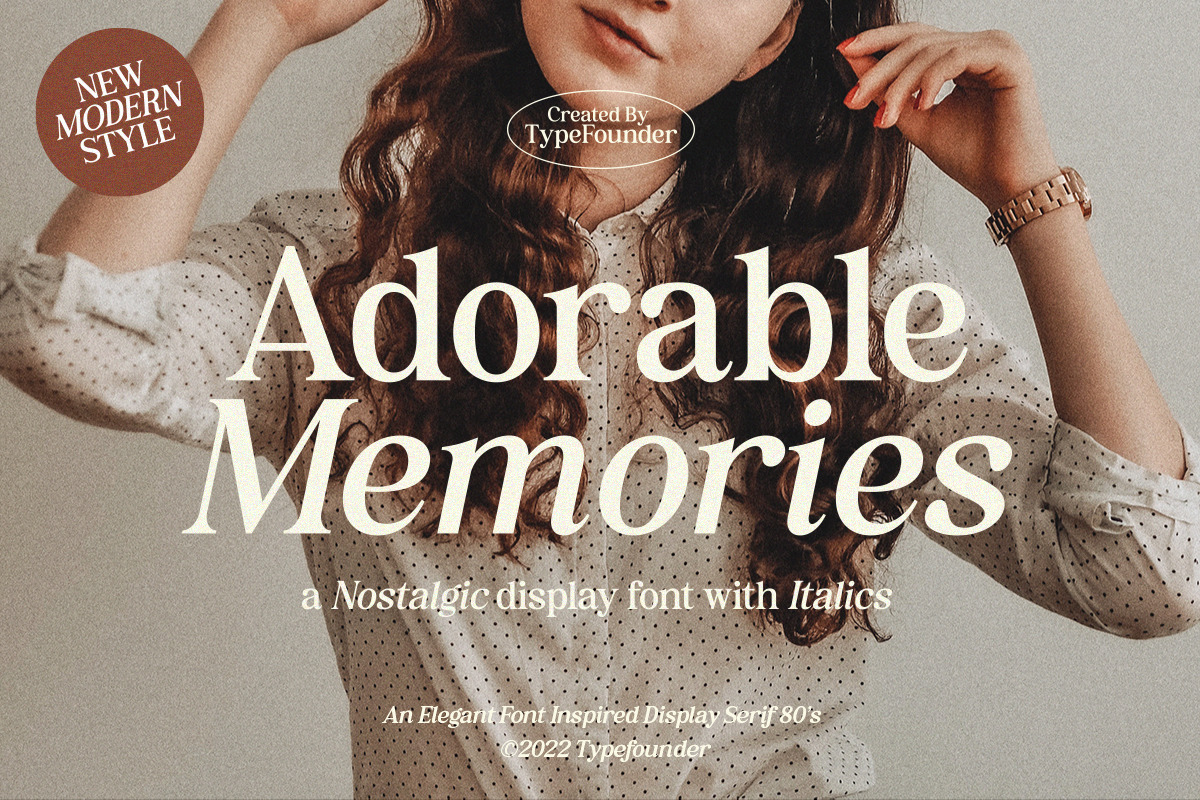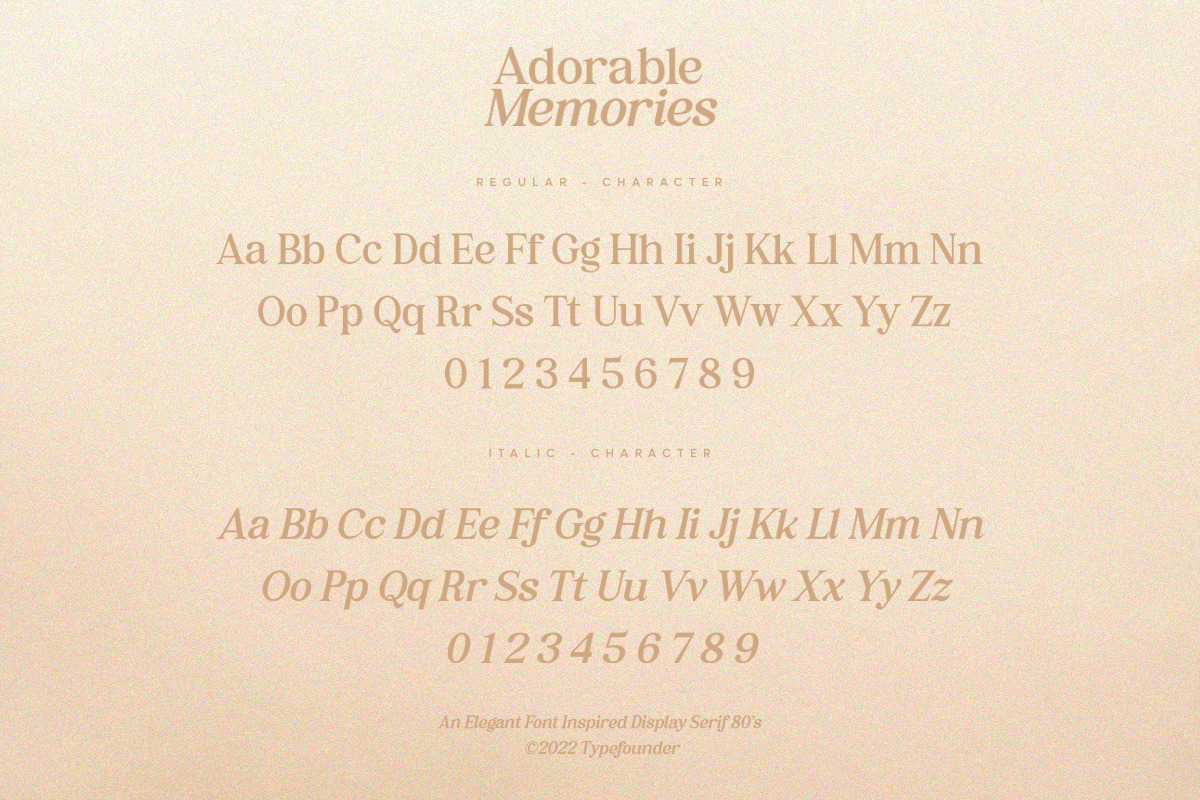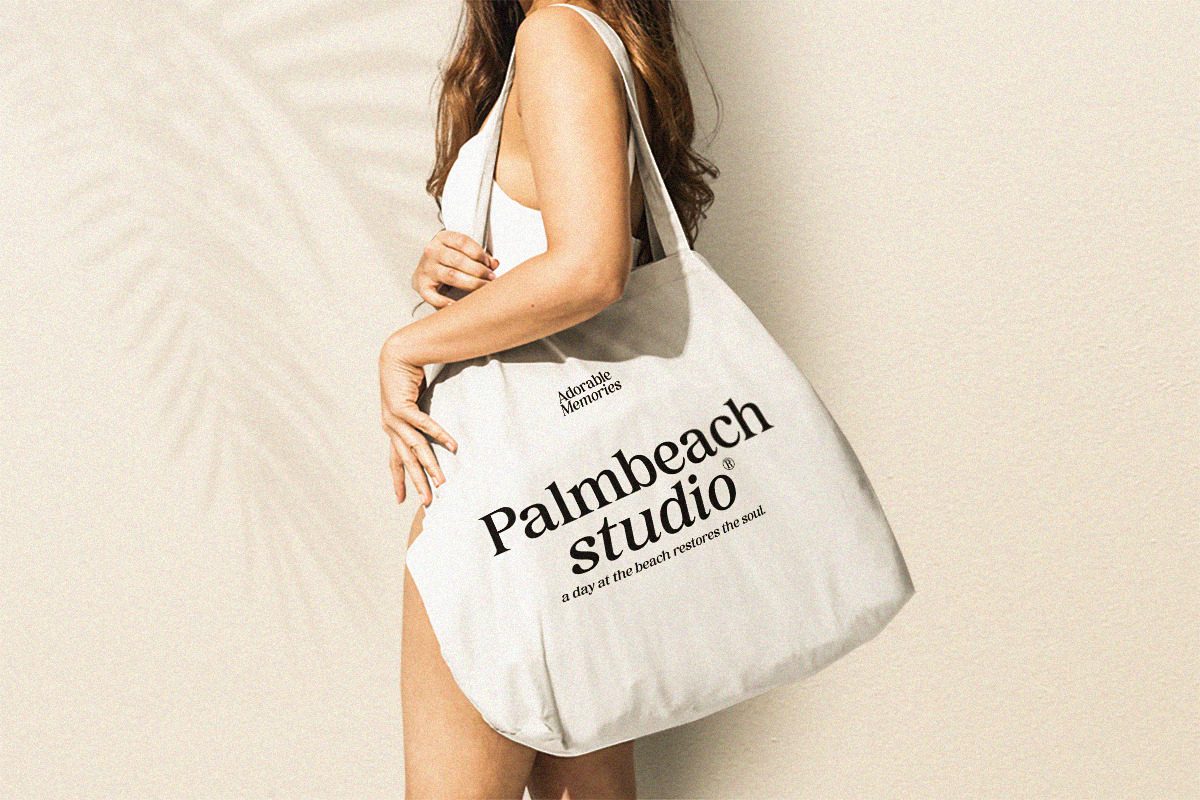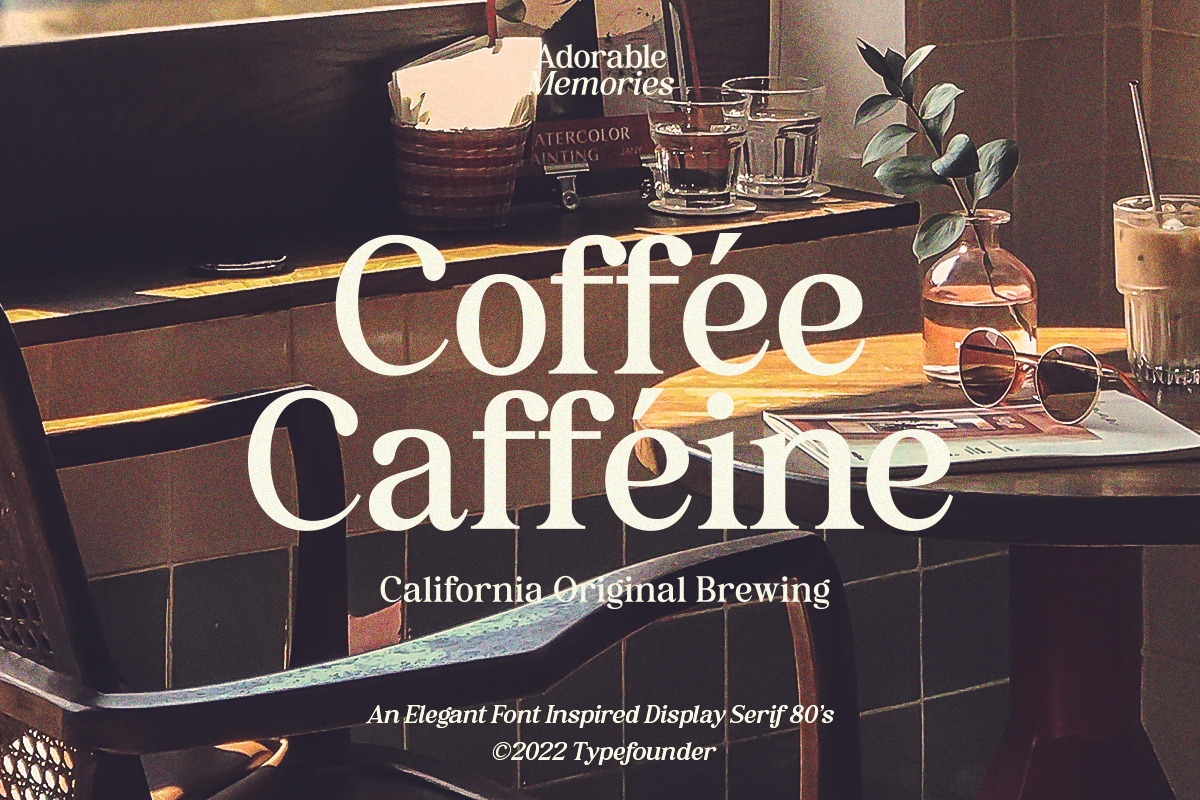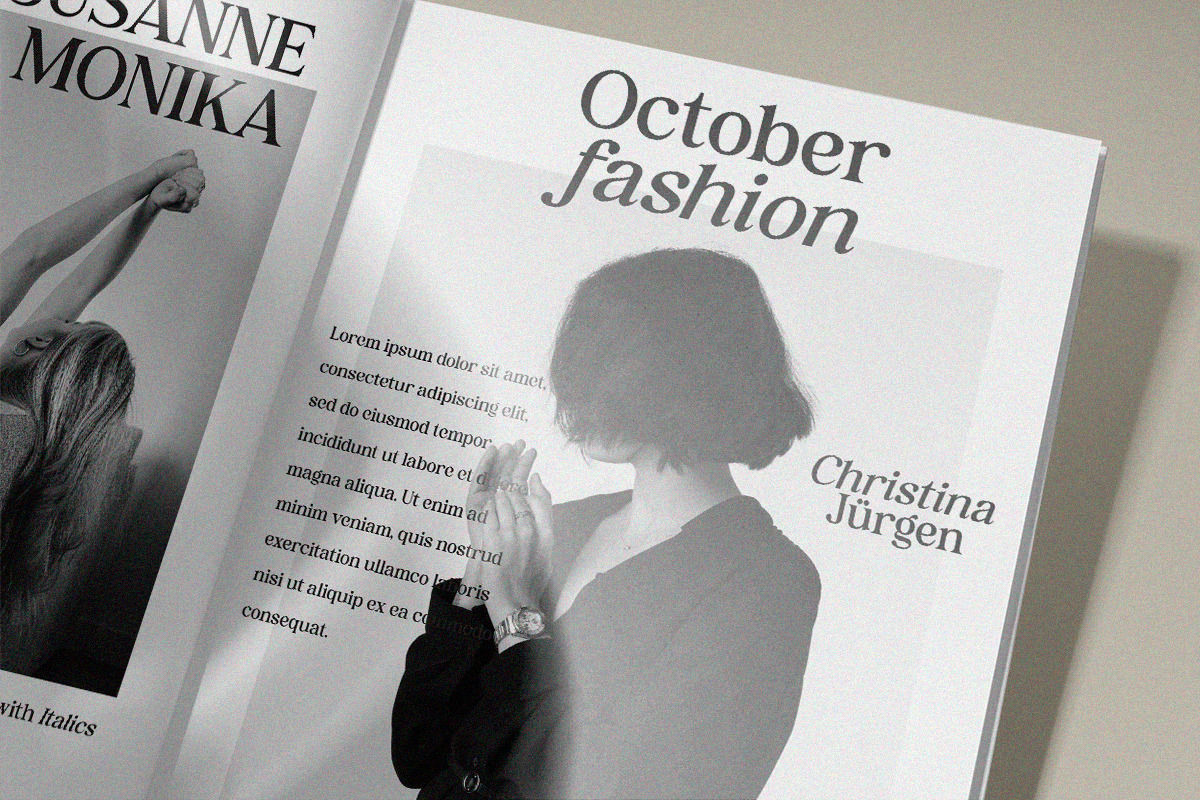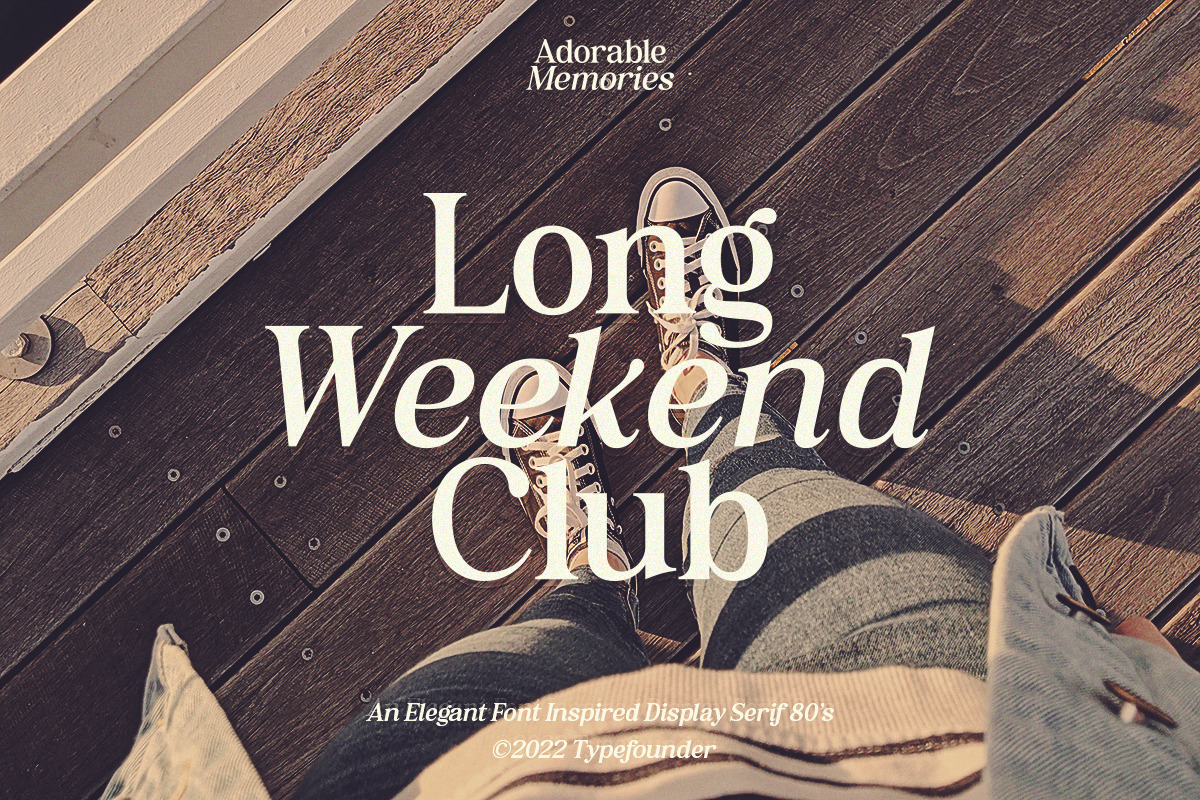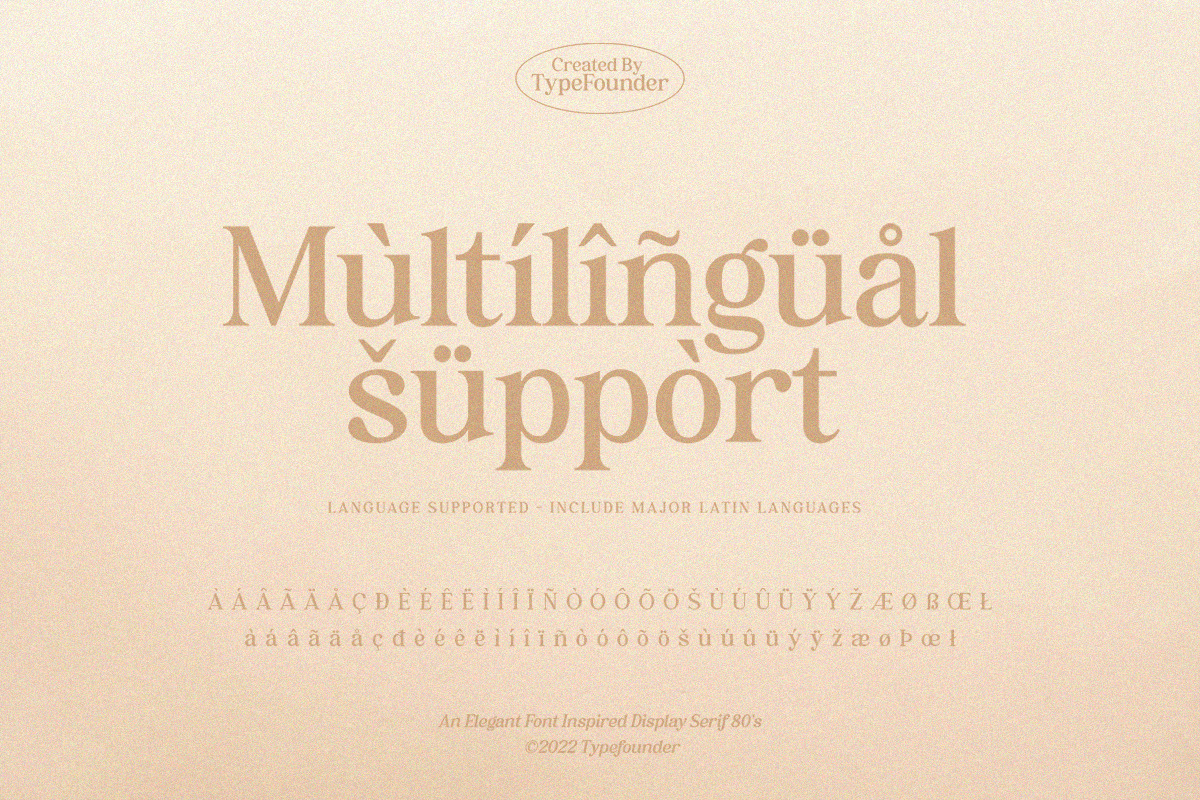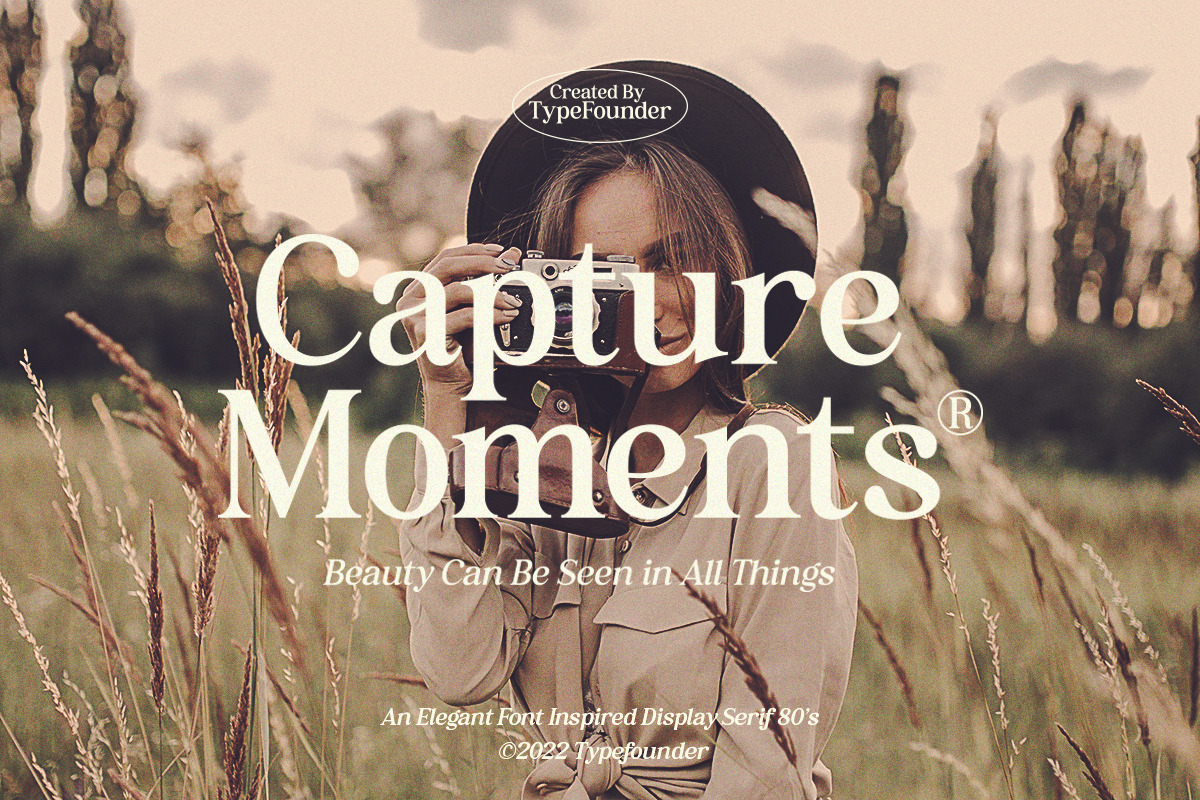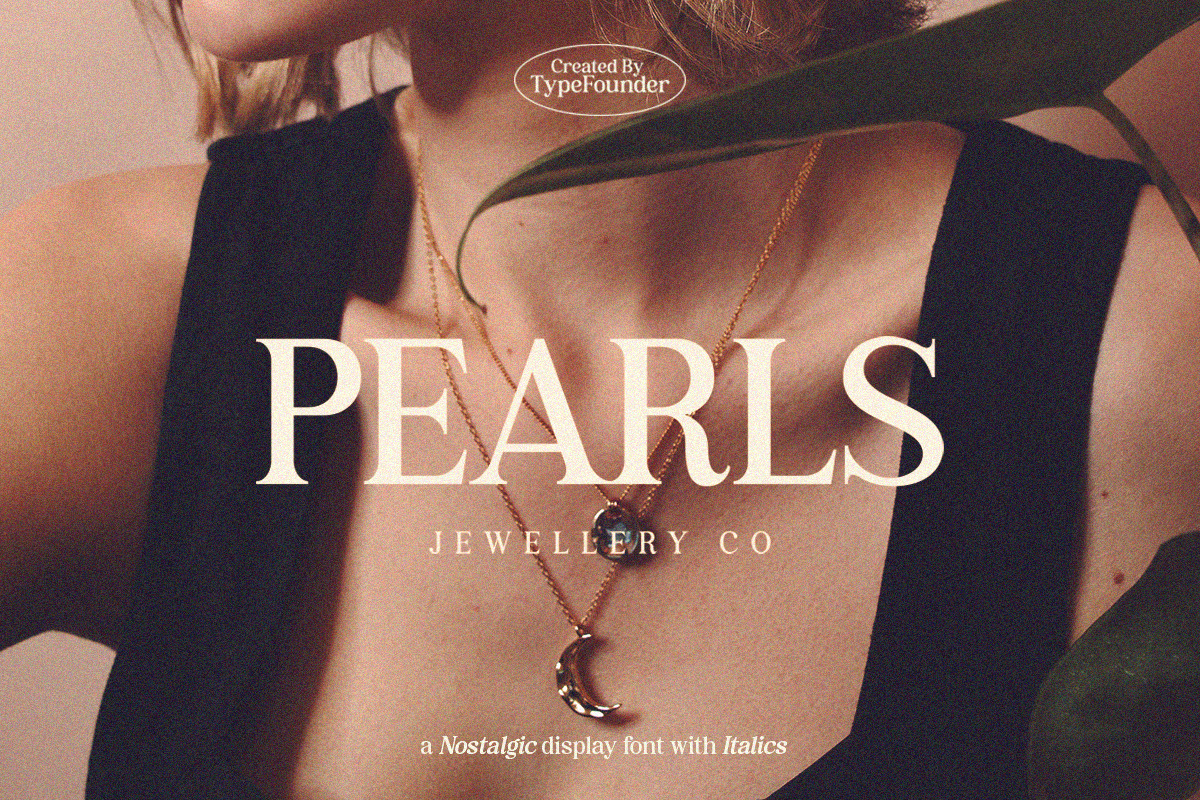
Adorable Memories - Nostalgic Serif
Adorable Memories is a nostalgic serif typeface that looks incredible in both large and small settings as a display and body text in regular - italic version. suitable for any branding purpose.
Language support: All European languages